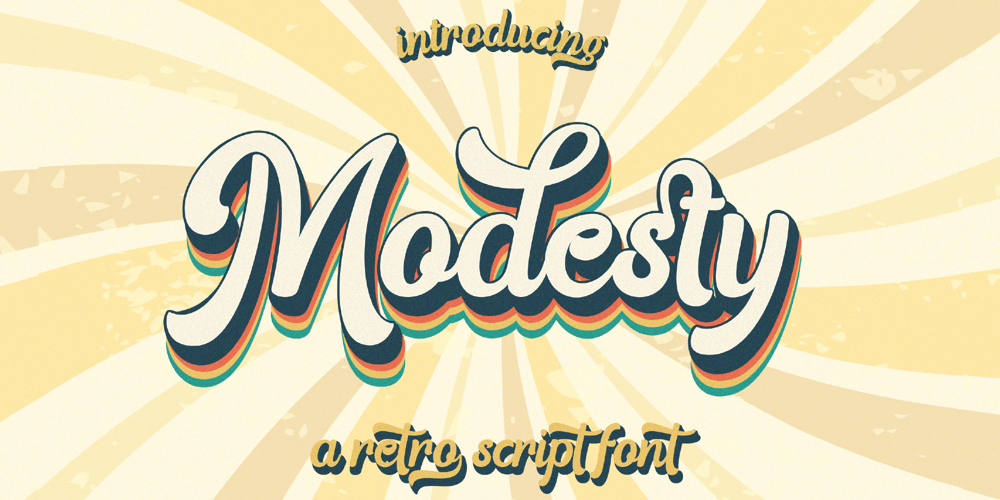
Modesty Font Family was designed by Achmad Yani and published by Flawlessandco. Modesty contains 3 styles and family package options. Modesty is an retro font type with a fun and groovy style that perfect for your retro vintage-themed projects. Try out some alternate characters for another visual result!There’s some connected letters and some alternates that suitable for any graphic designs such as branding materials, t-shirt, print, business cards, logo, poster, t-shirt, photography, quotes .etcThis font support for some multilingual. Also contains uppercase A-Z and lowercase a-z, alternate character, numbers 0-9, and some punctuation.If you need help, just write me! Thanks so much for checking out my shop!